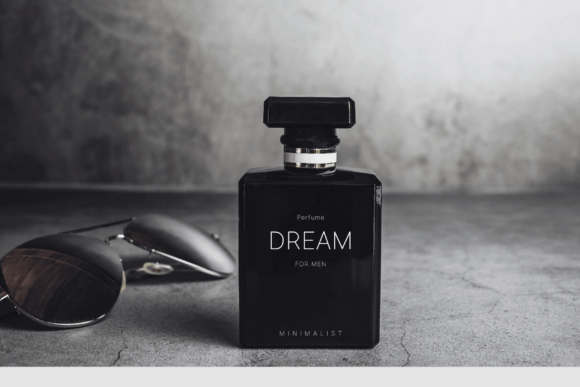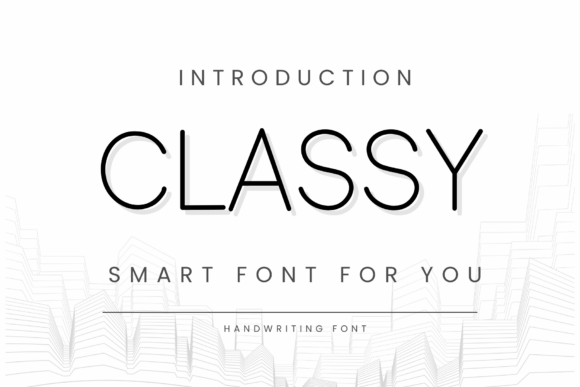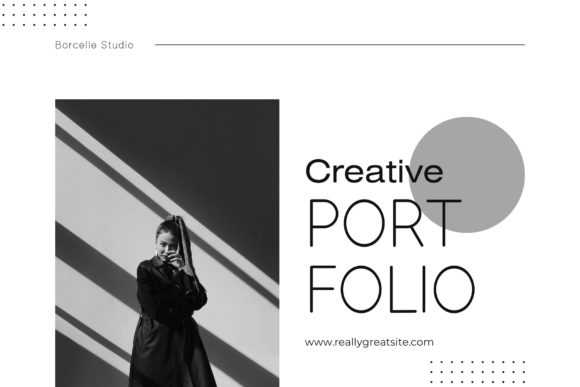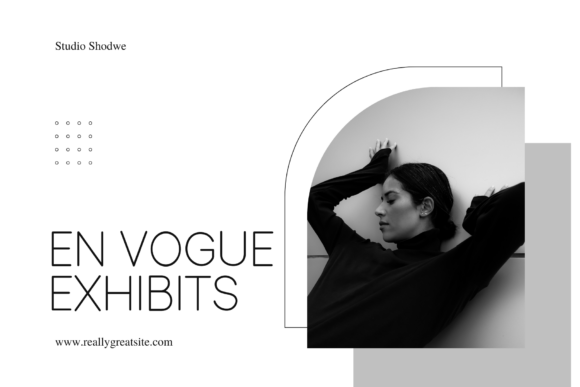
Classy Font
About the Classy Font
Discover the charm of Classy Font. This font is a perfect blend of modern aesthetics and classic appeal. Classy is a simple and neat sans serif font designed to give a professional, modern and elegant impression to various creative projects. With clean and simple lines, this font is perfect for craft design, create logos, digital project, banner, poster, product fashion, packaging, books cover, magazine, headline, wedding invitation publications etc.
Classy Font’s clean lines and elegant simplicity make it ideal for headlines, logos, and short-form text on packaging or posters. It projects a sophisticated, modern feel, perfect for brands aiming for a premium or minimalist aesthetic. However, its delicate nature makes it less suitable for body text or UI elements requiring high readability at smaller sizes.
For effective pairings, consider a contrasting serif like Garamond or a geometric sans-serif like Futura for a balanced, timeless look. A playful script font like Allura could be used for accents, adding a touch of personality without overpowering Classy Font’s inherent elegance.
This font’s core personality is sophisticated and understated, conveying professionalism and a sense of refined modernity. Avoid pairing it with overly decorative or excessively playful fonts, as this could detract from its clean and elegant style.
Classy Font Usage Examples
Classy Font Example